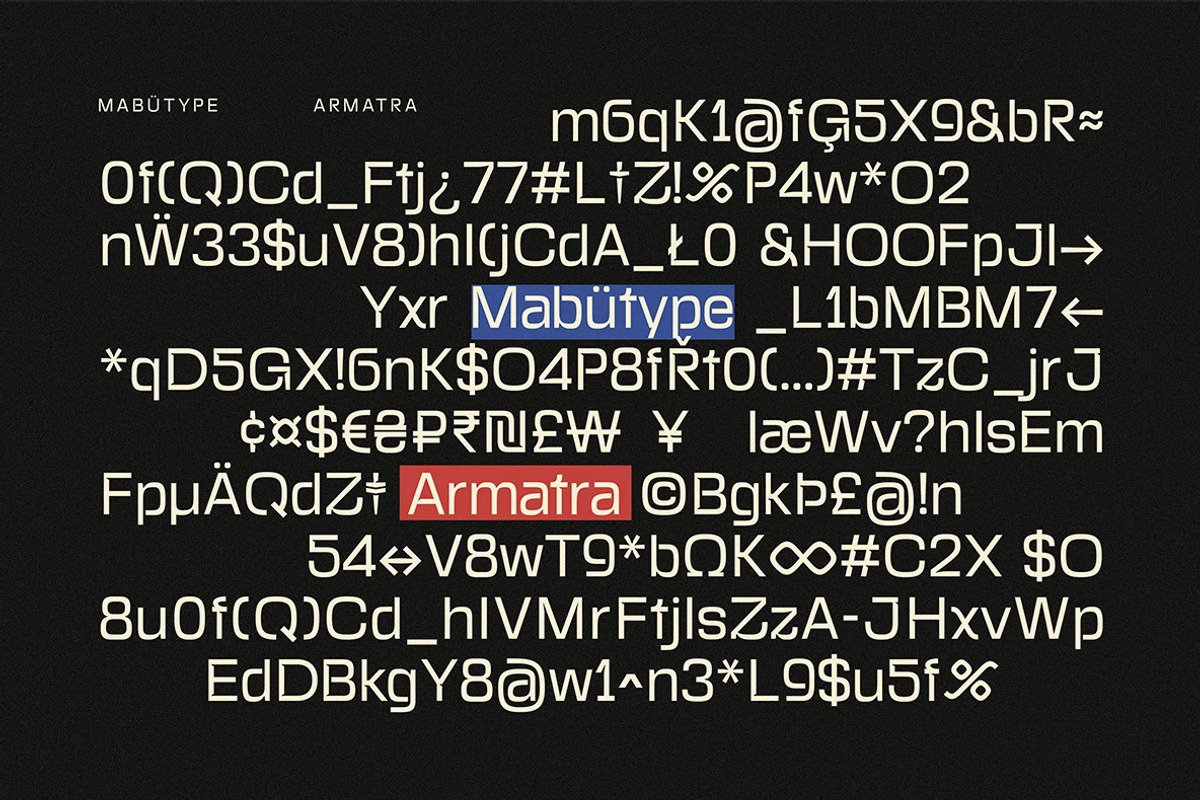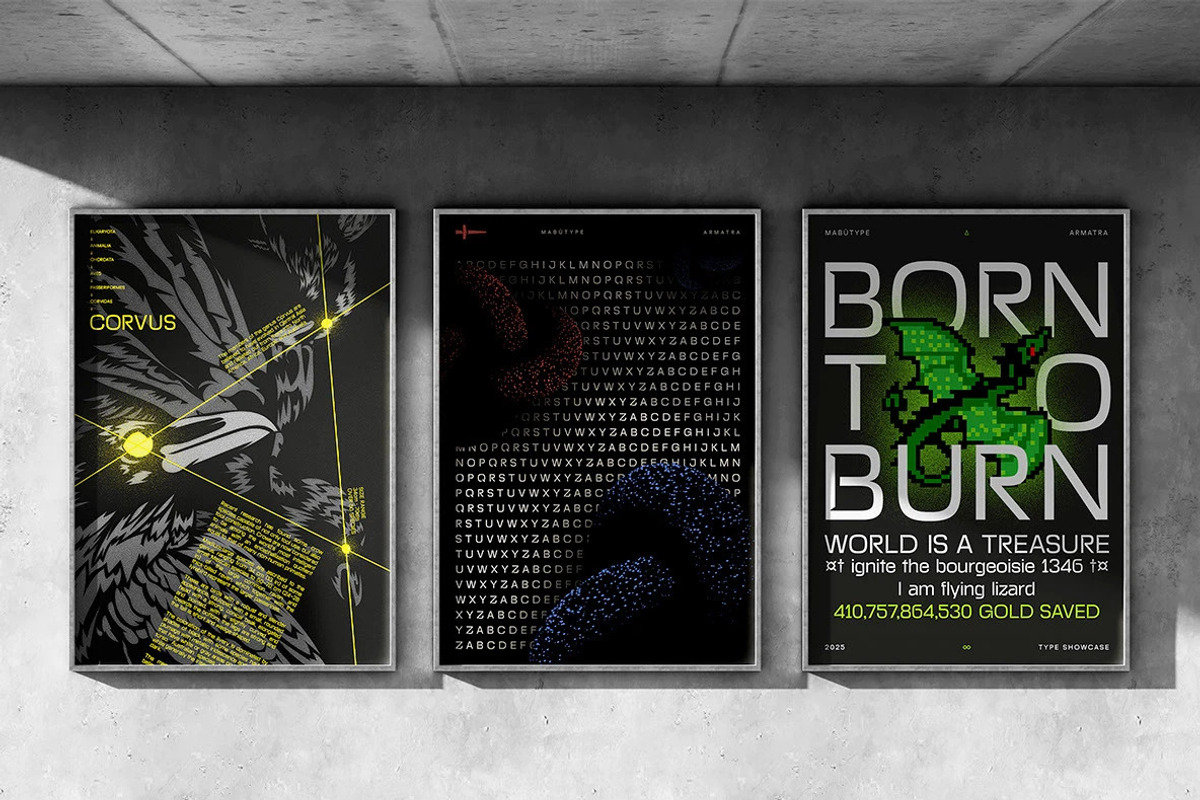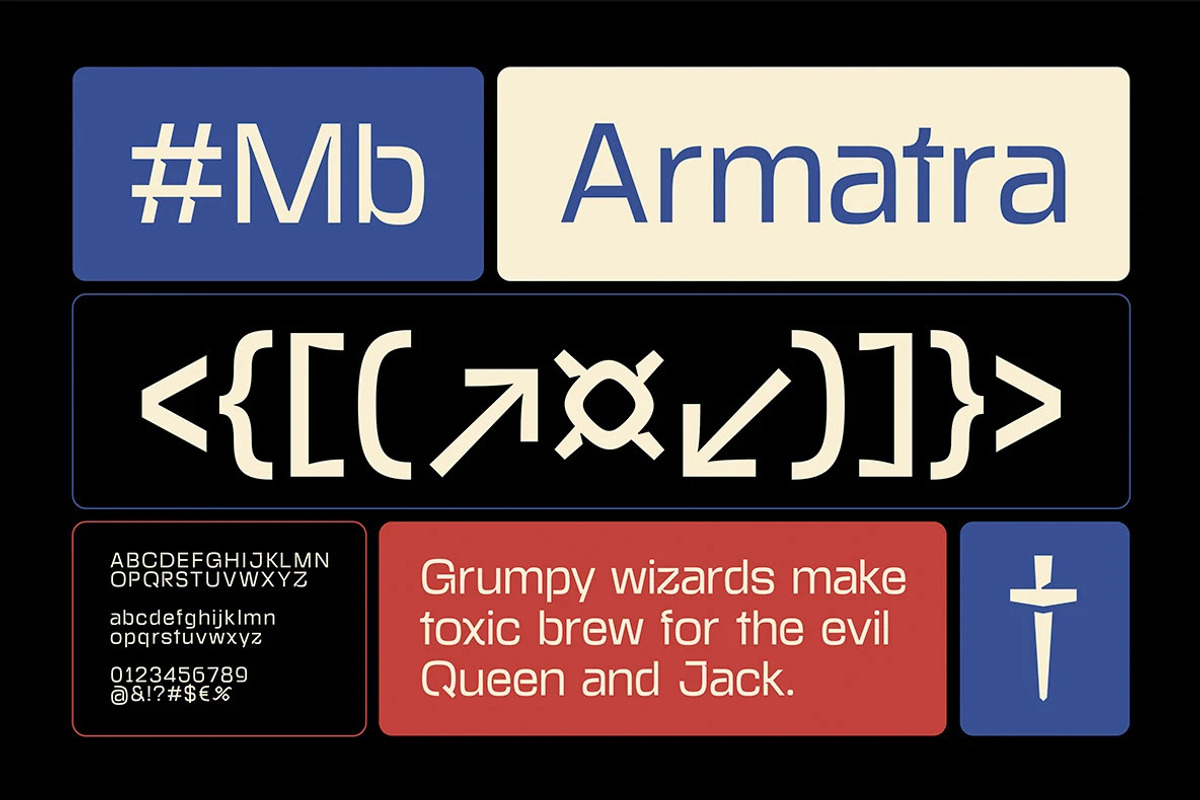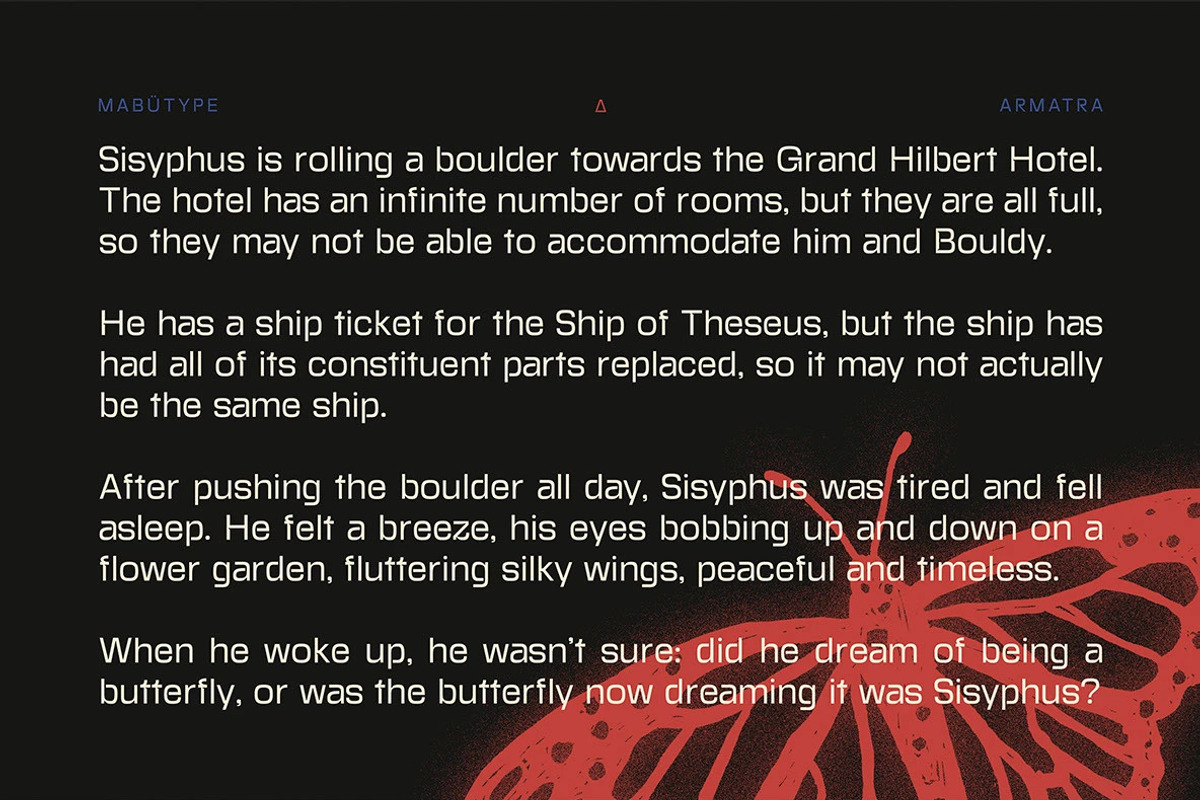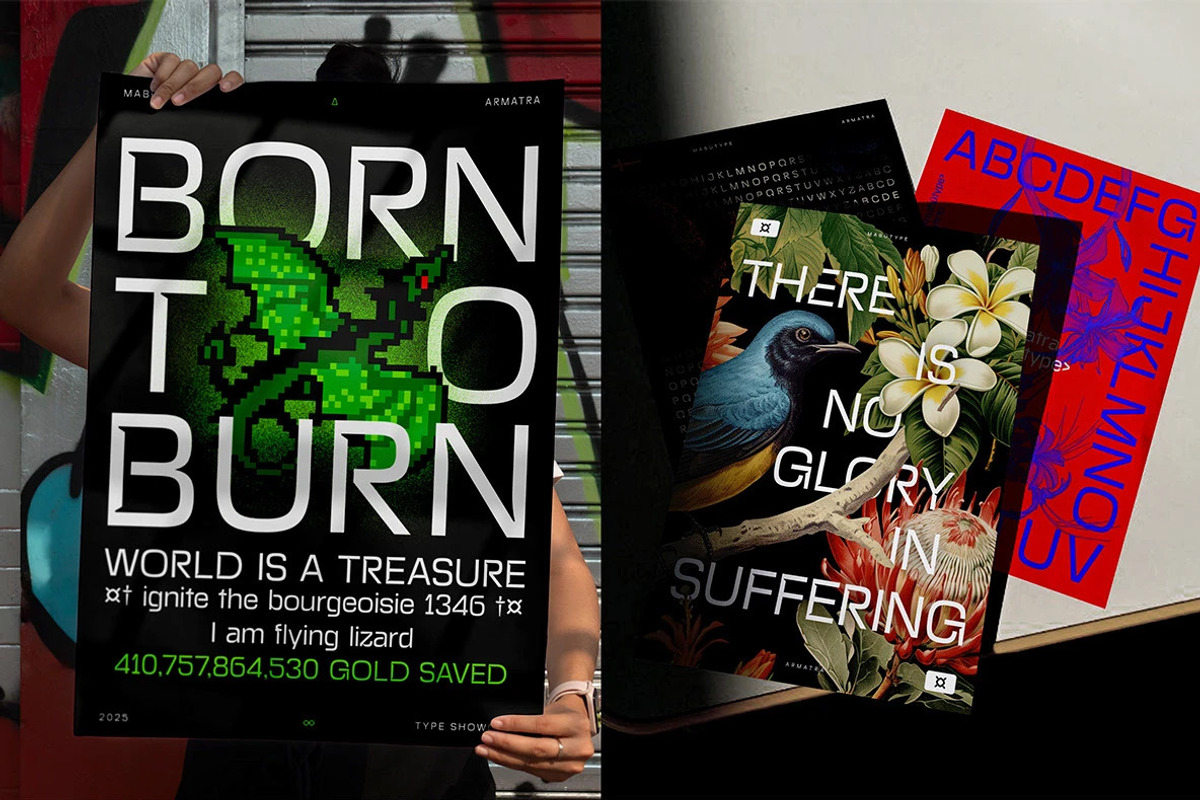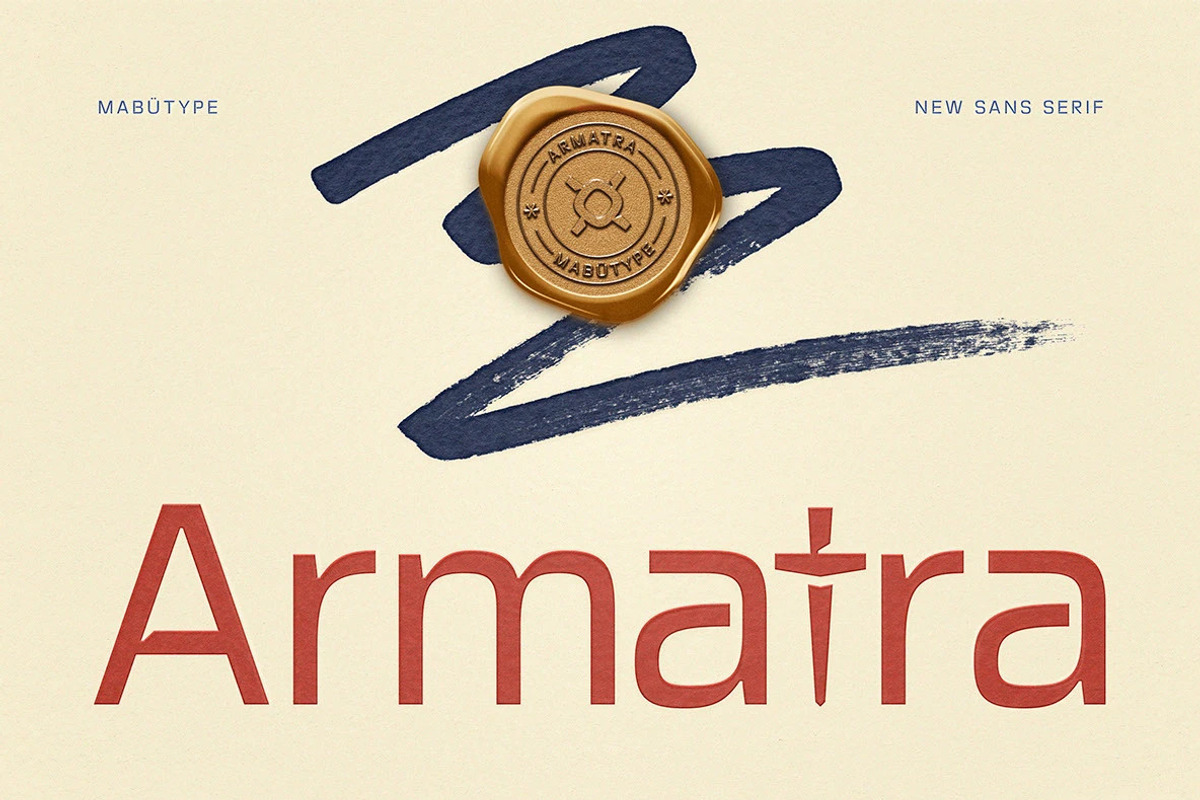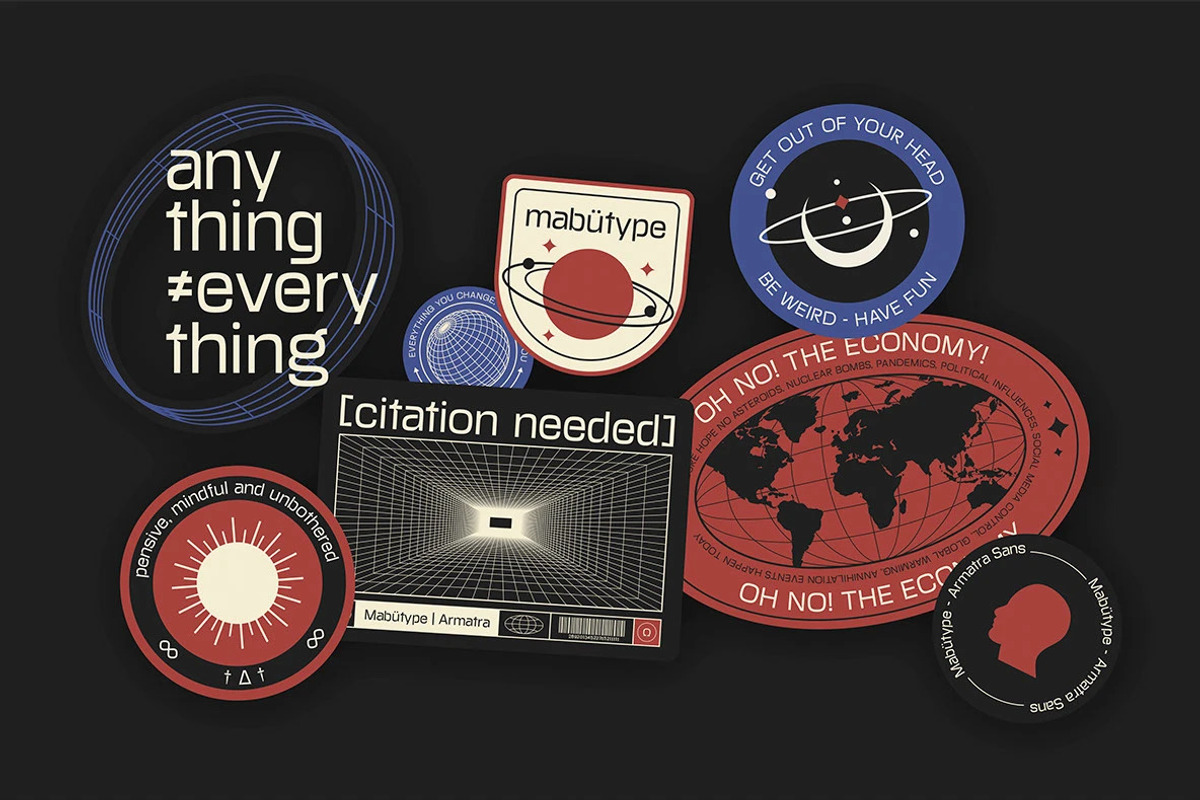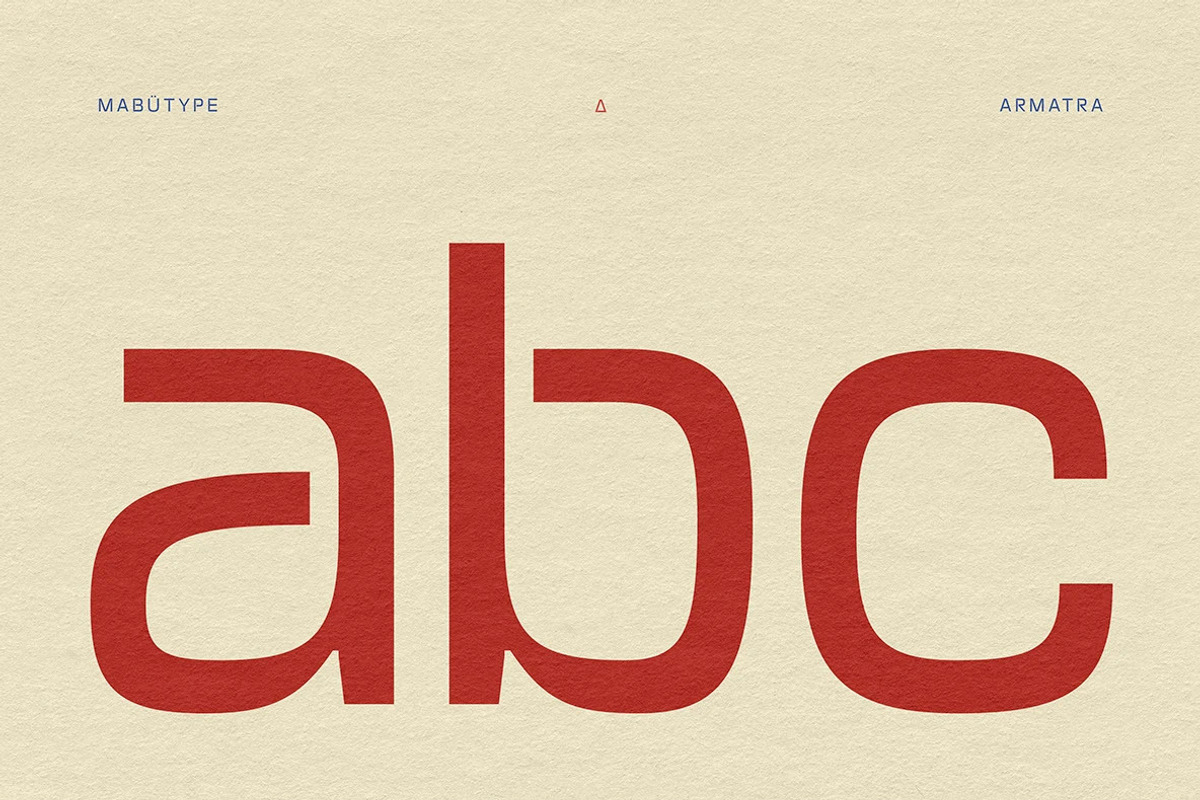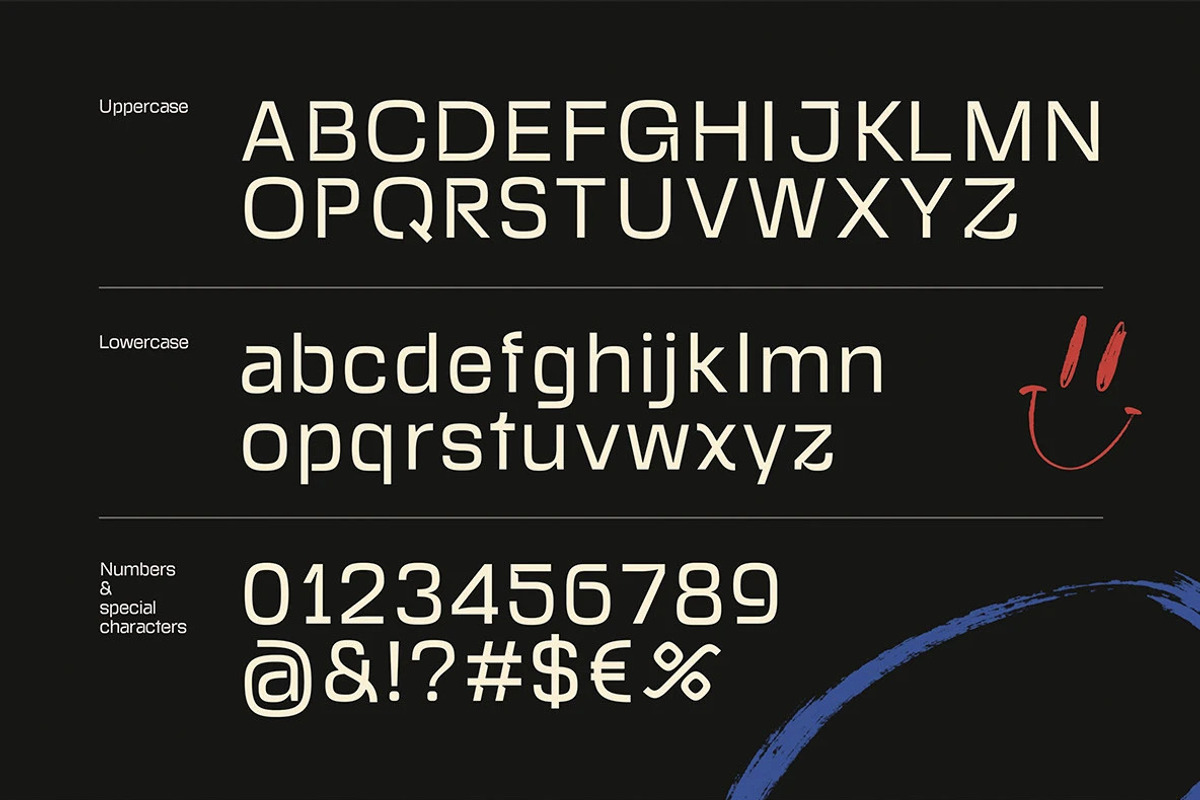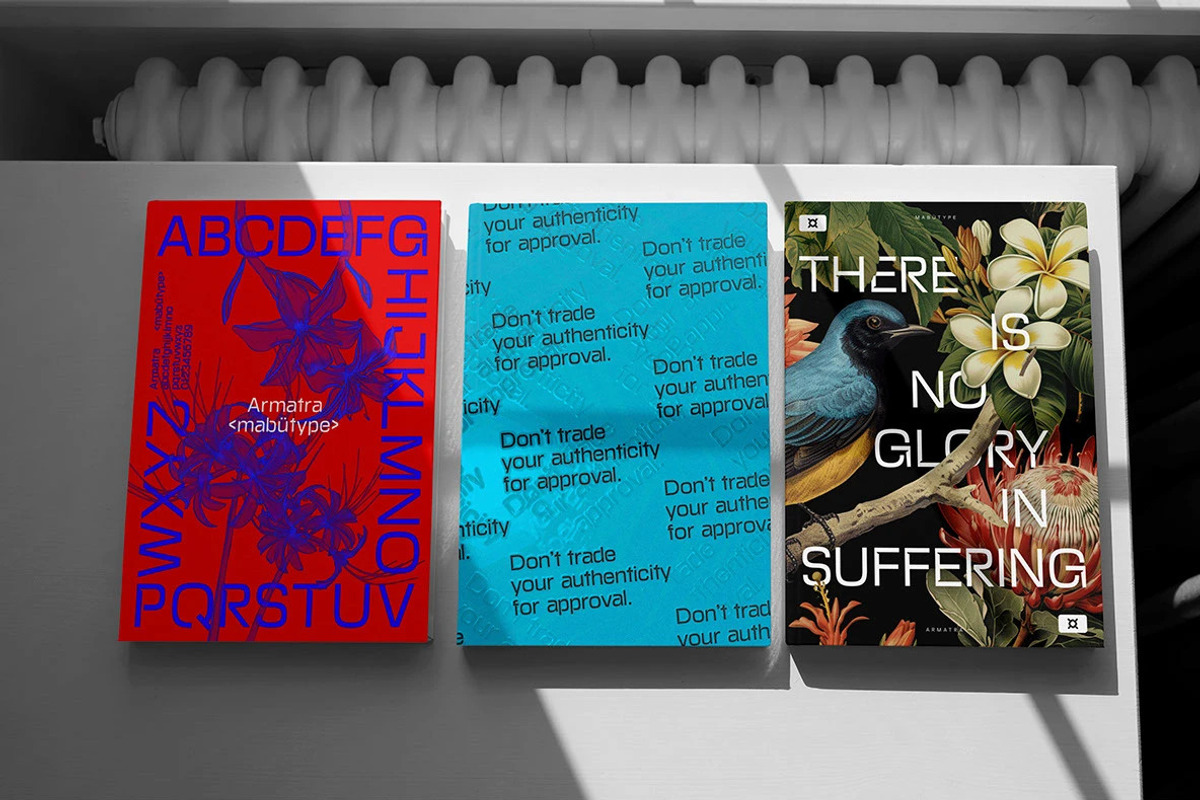
Armatra Sans
Armatra: A Modern Sans Typeface for Creative Projects
Armatra offers a fresh, contemporary approach to sans serif typography, built specifically for forward-thinking designers and innovative creative endeavors. Its unique character architecture—marked by intentional disconnected strokes, precise geometry, and functional ink traps—delivers a striking visual edge to high-impact logos and bold headlines, all while preserving crisp legibility across digital and print media.
Modern Aesthetic: A sleek, cutting-edge style tailored for tech-inspired graphics, digital interfaces, and editorial layouts.
Distinctive Character Design: Seamlessly blends geometric precision with disconnected structural elements to create an instantly recognizable silhouette.
Versatile Usage: Optimized for impactful headlines, brand identities, promotional campaigns, and prominent packaging design.
High-Contrast Clarity: Carefully engineered ink traps ensure high legibility and sharp rendering at both display sizes and small print scales.